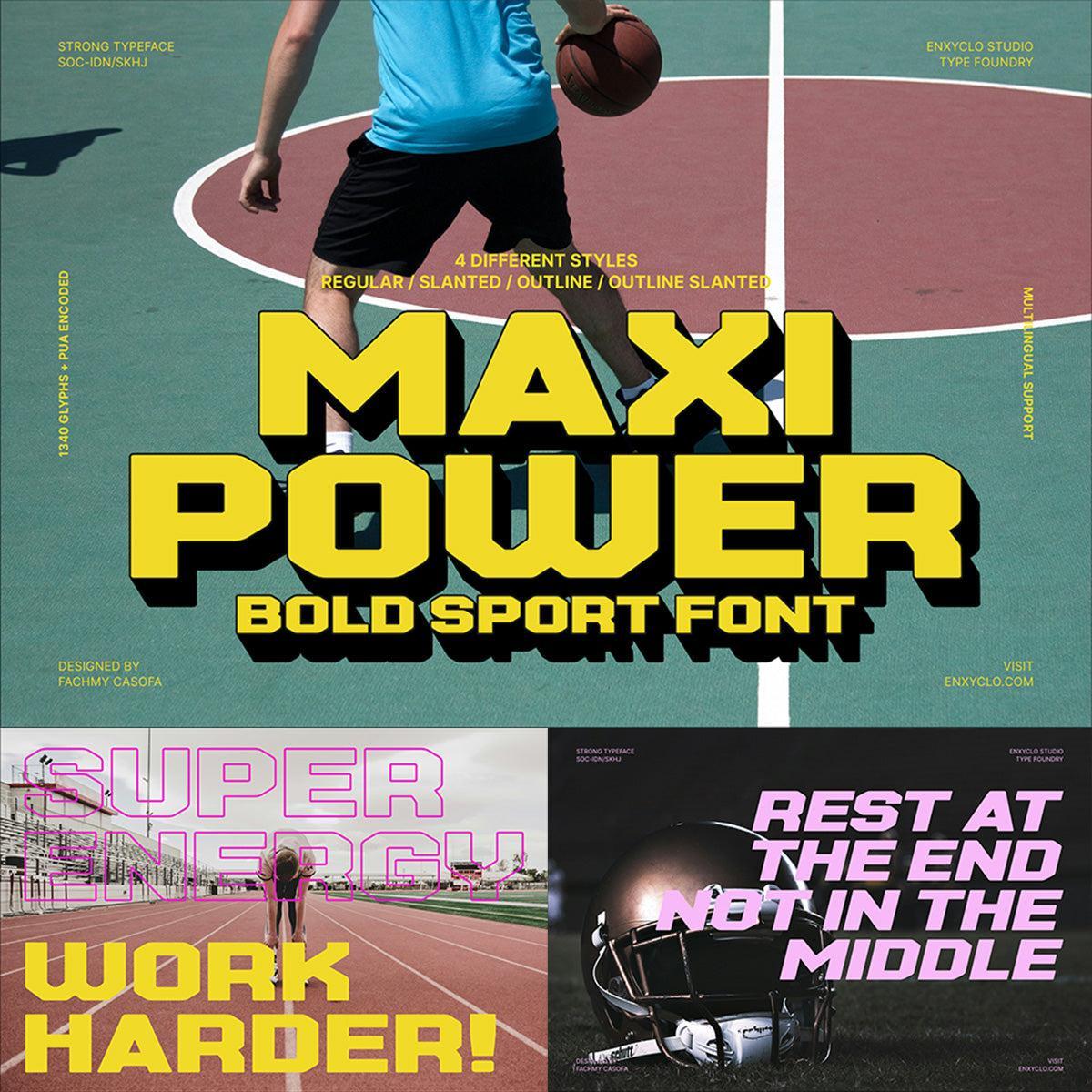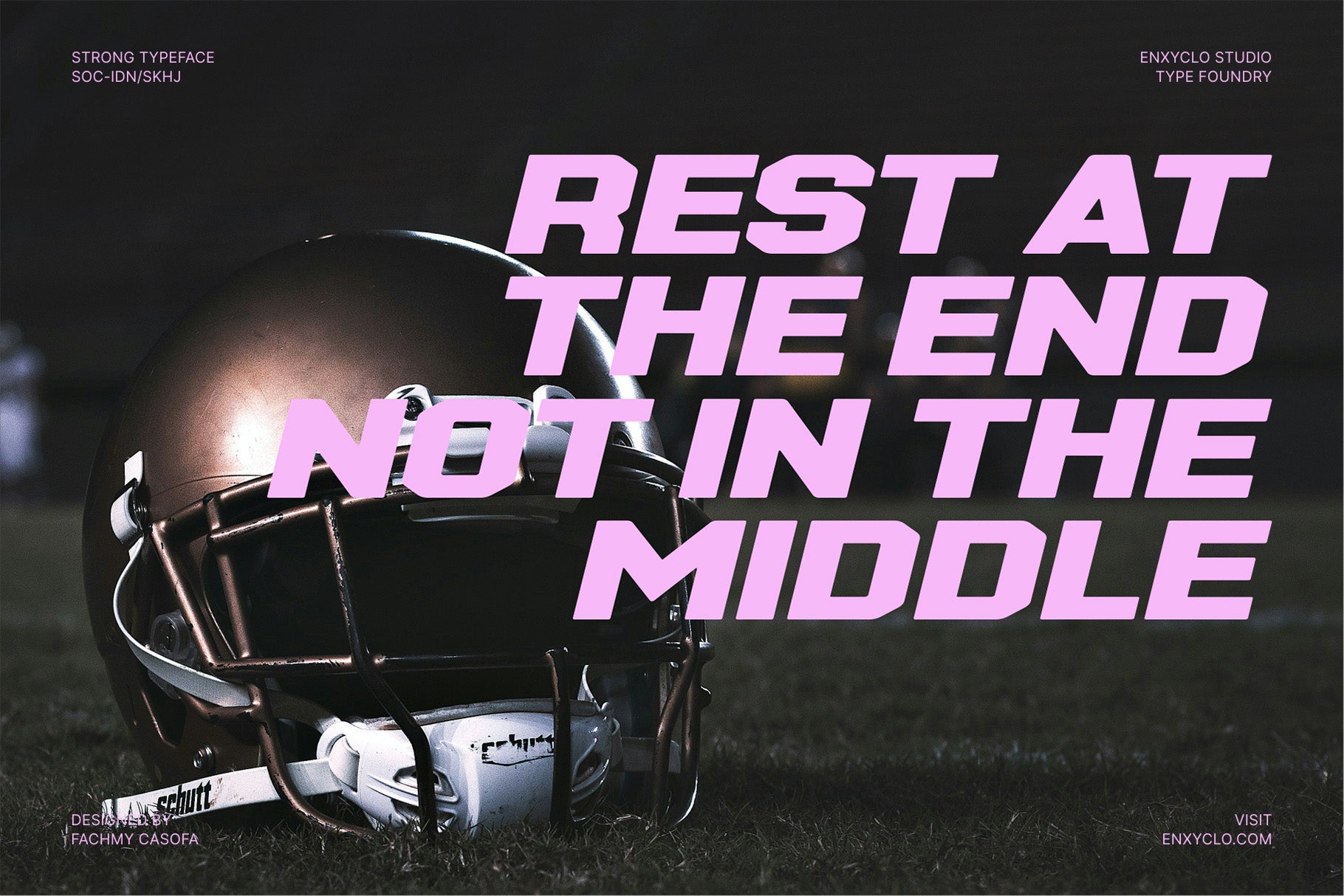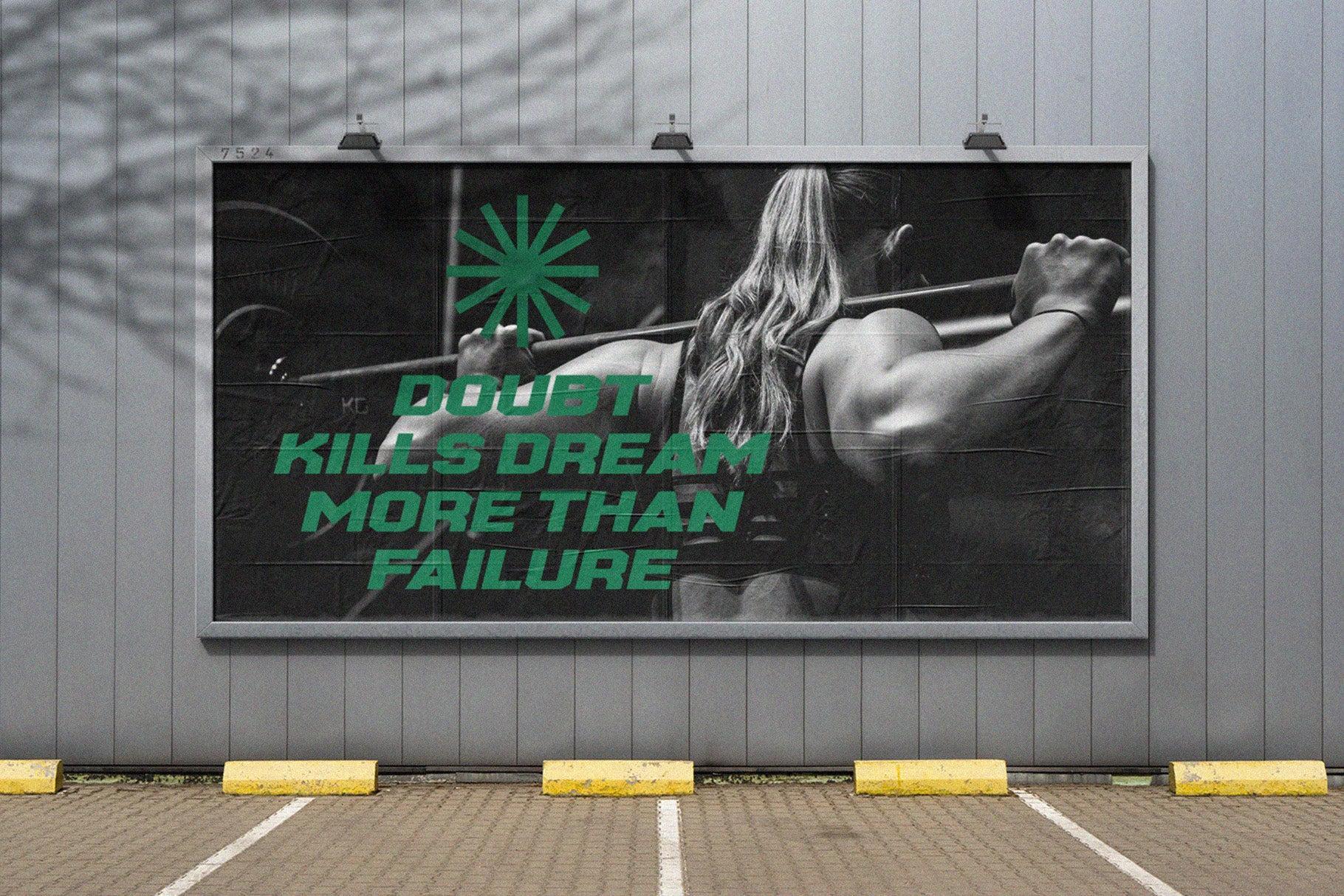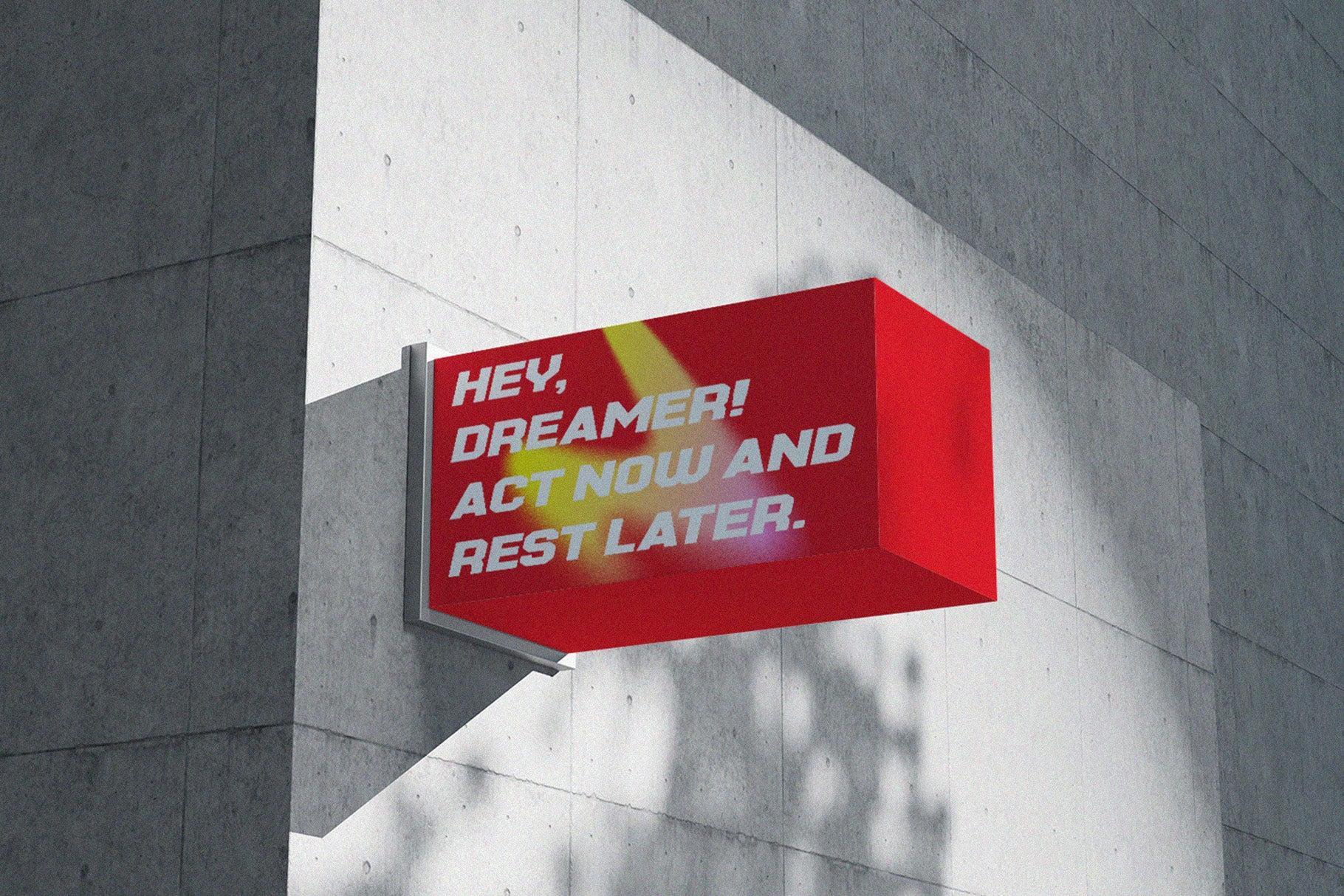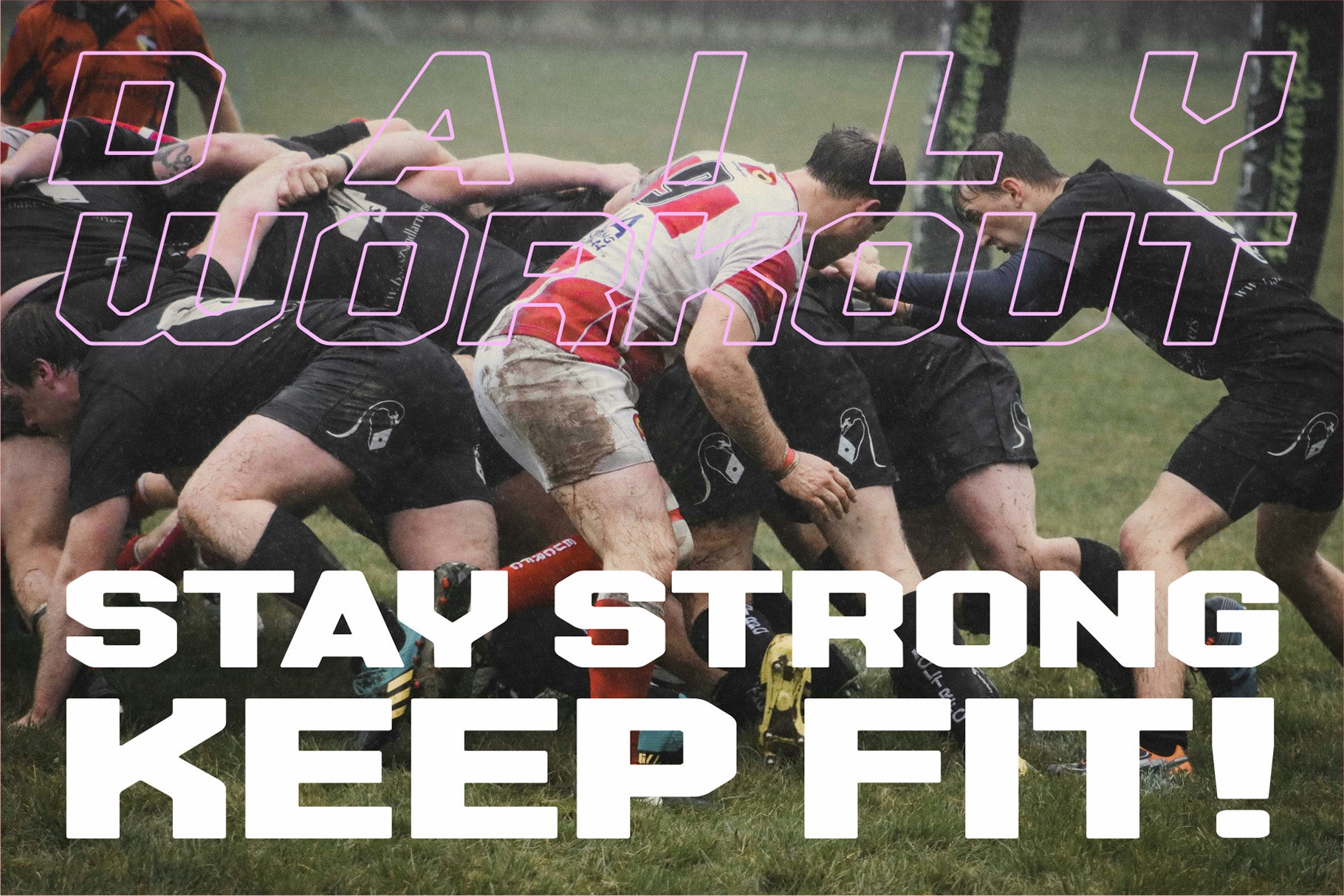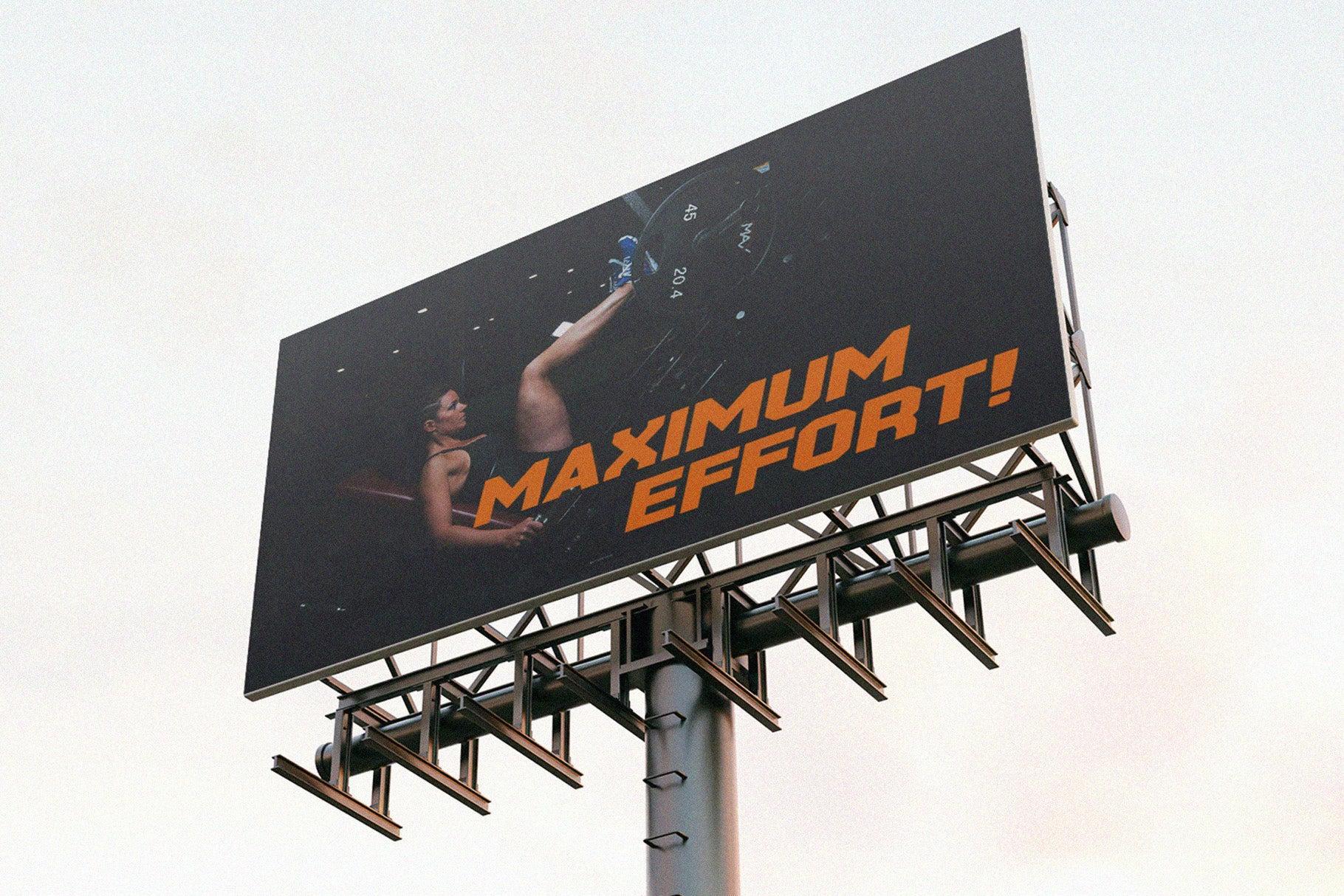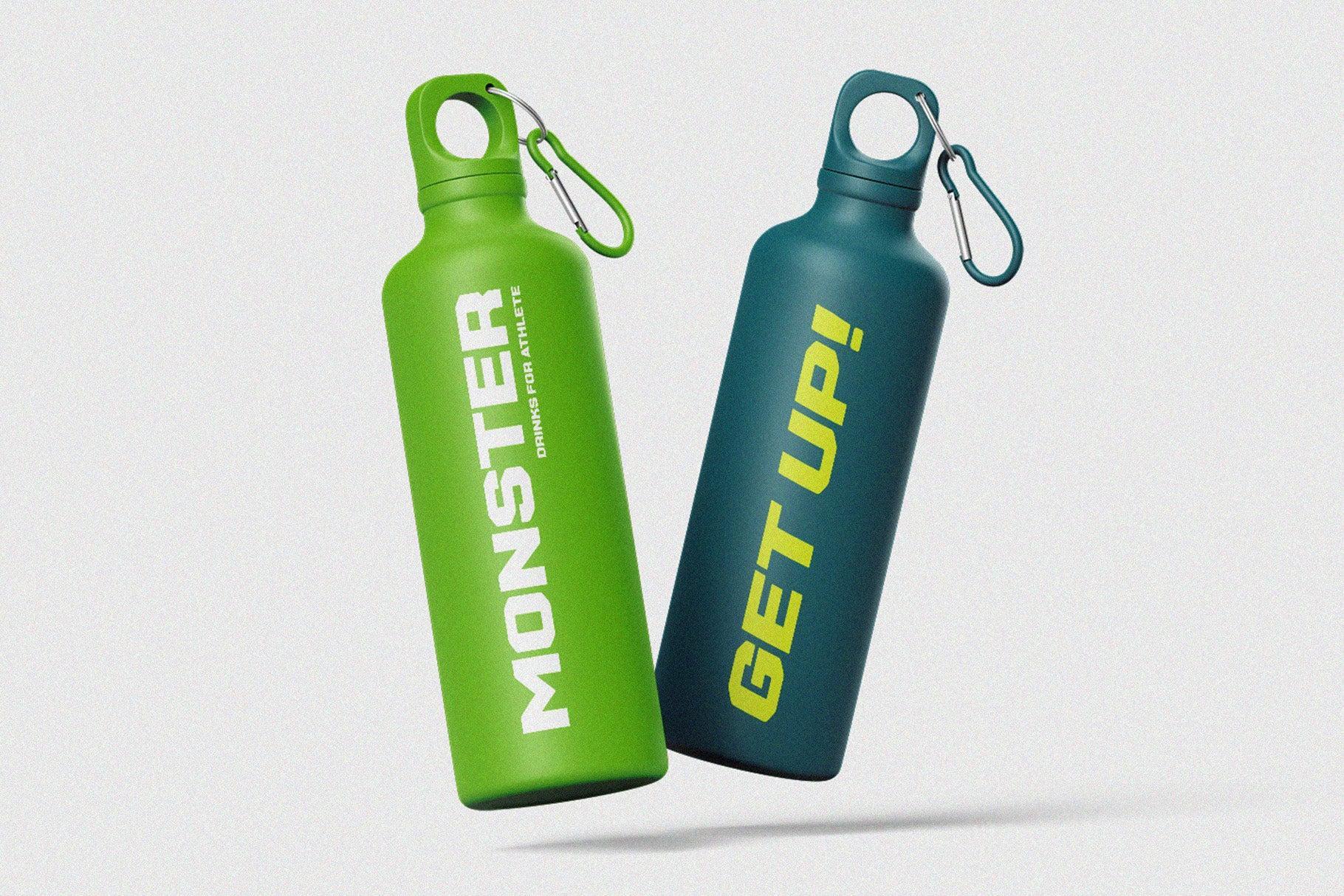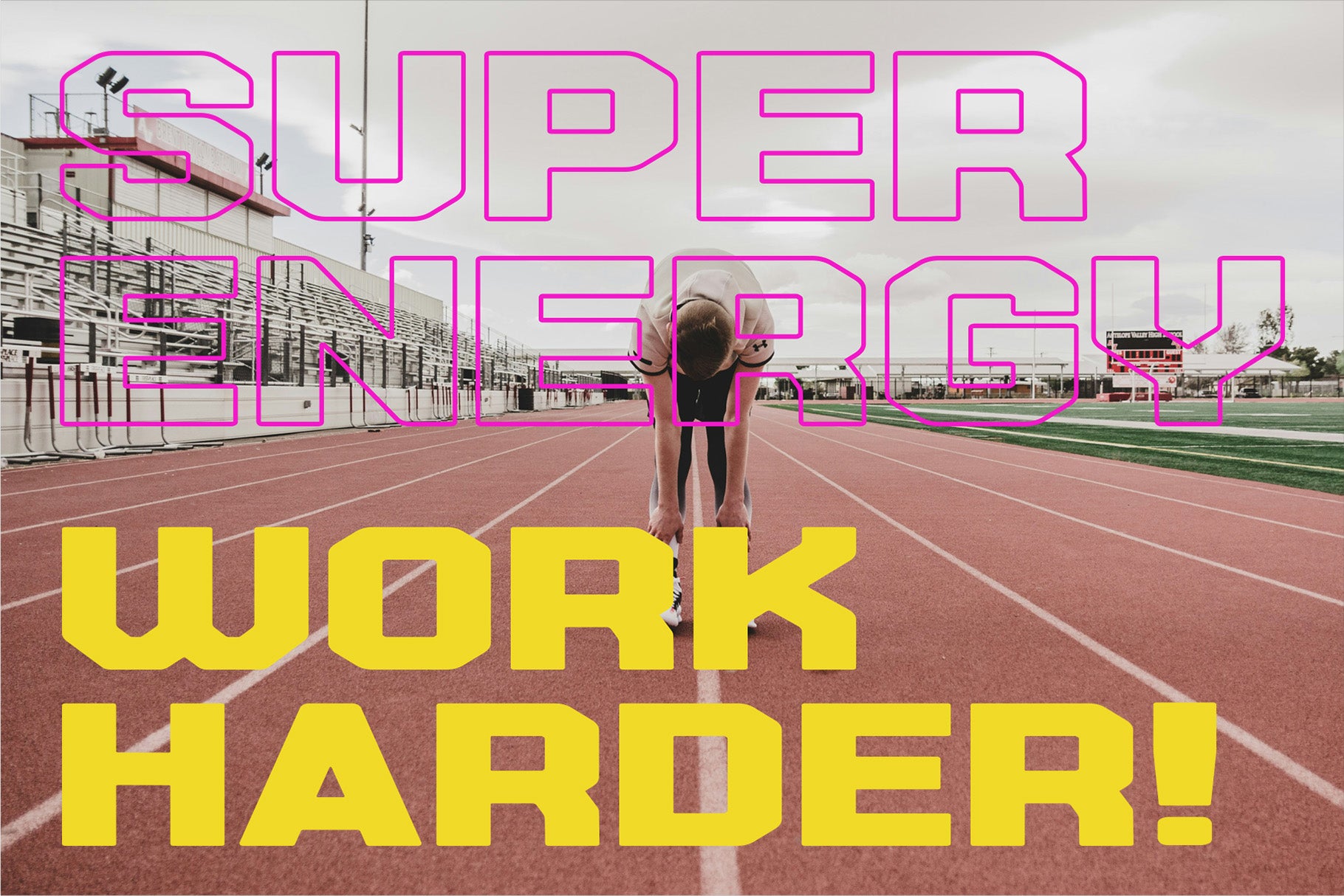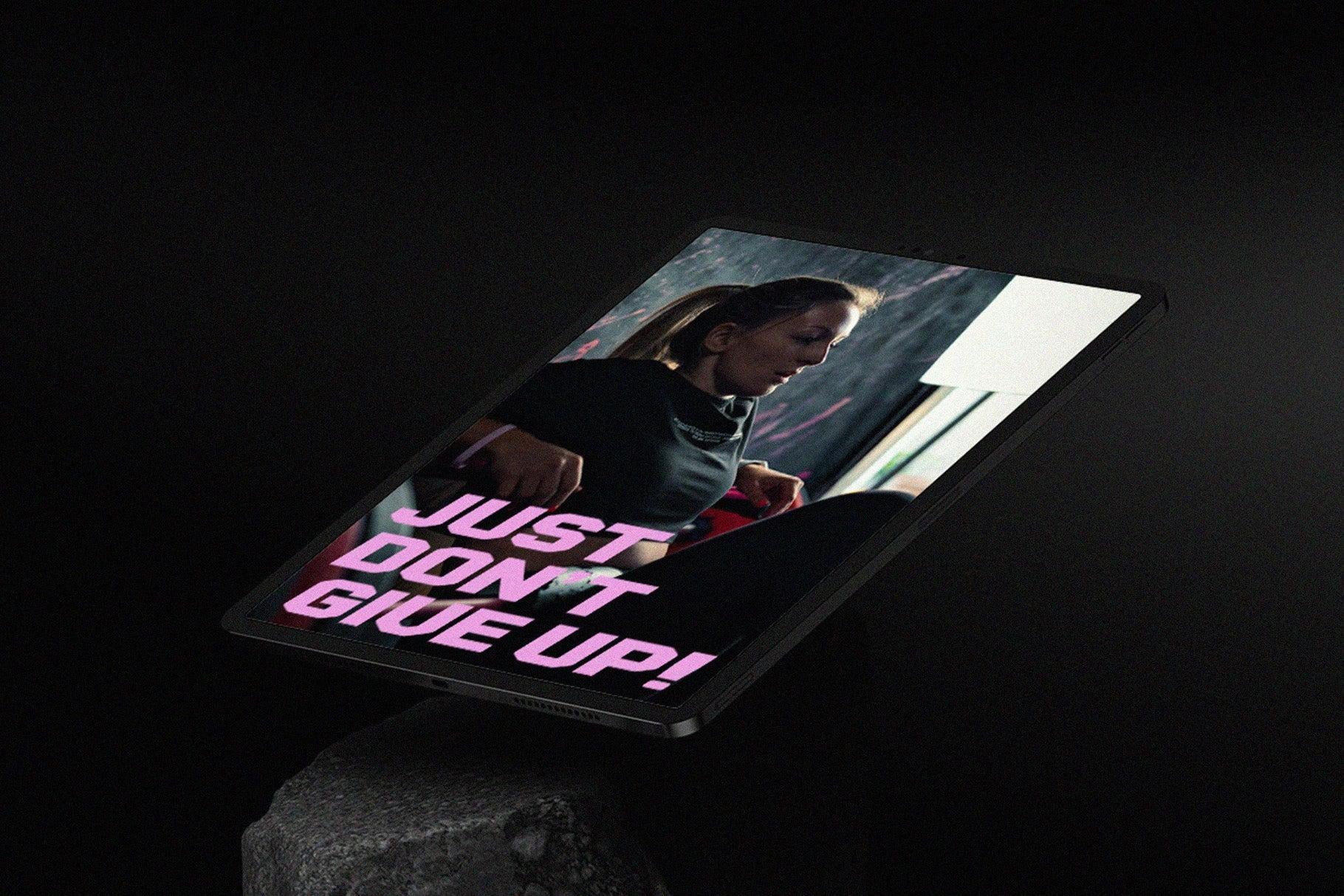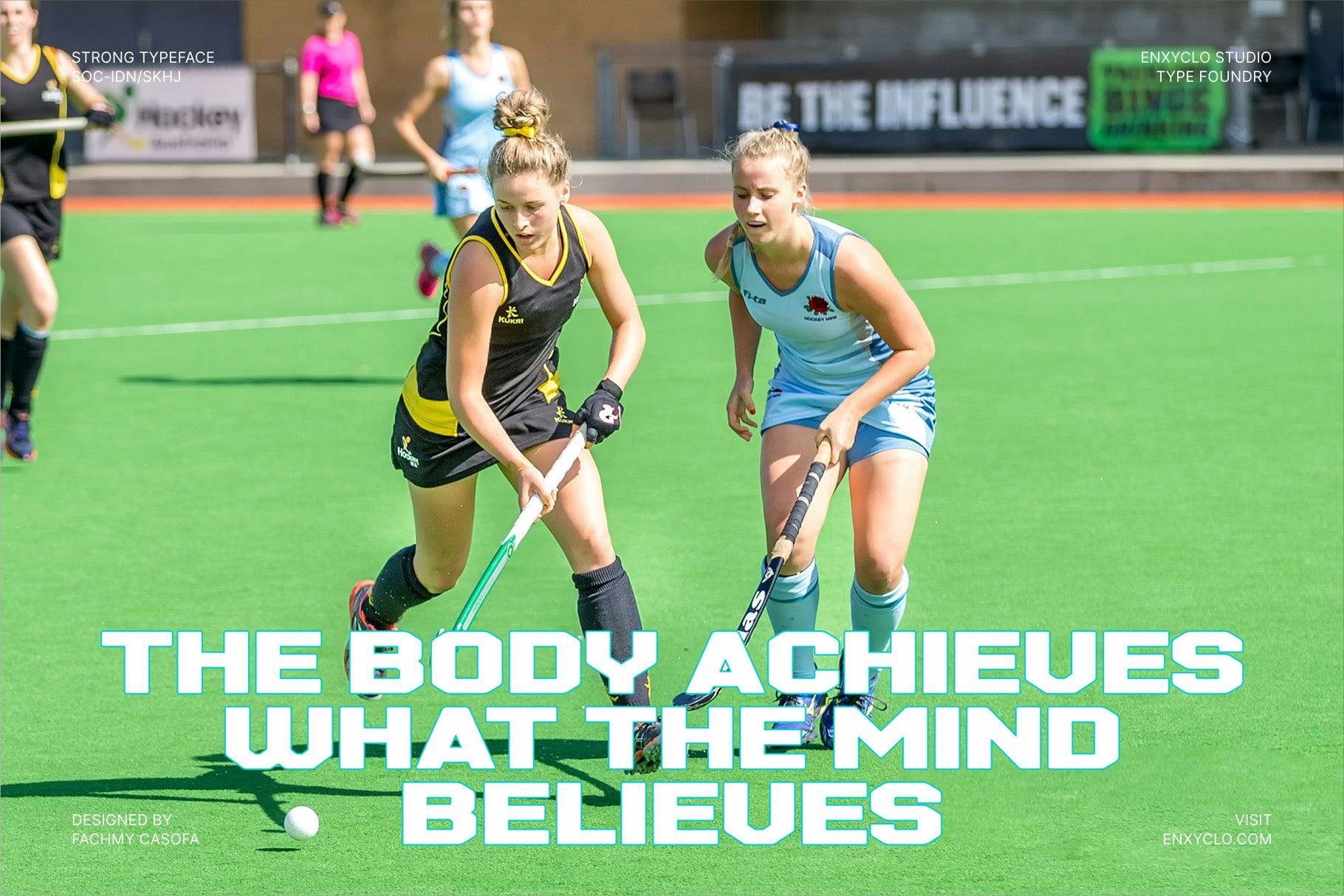
MAXI POWER
Maxi Power - Sport Font is a versatile gym sport font available in True Type (TTF) and Open Type (OTF) formats, as well as Web Open Font Format (WOFF1 & WOFF2). It includes four styles (Regular, Slanted, Outline, Outline Slanted) and contains a total of 1,340 glyphs, featuring uppercase and lowercase letters, numerals, punctuation, symbols, and multilingual support.
Ideal for bold, sporty graphic design projects. Perfect for headlines, posters, branding, and logos, ensuring impactful visibility and a dynamic presence in any creative endeavor.